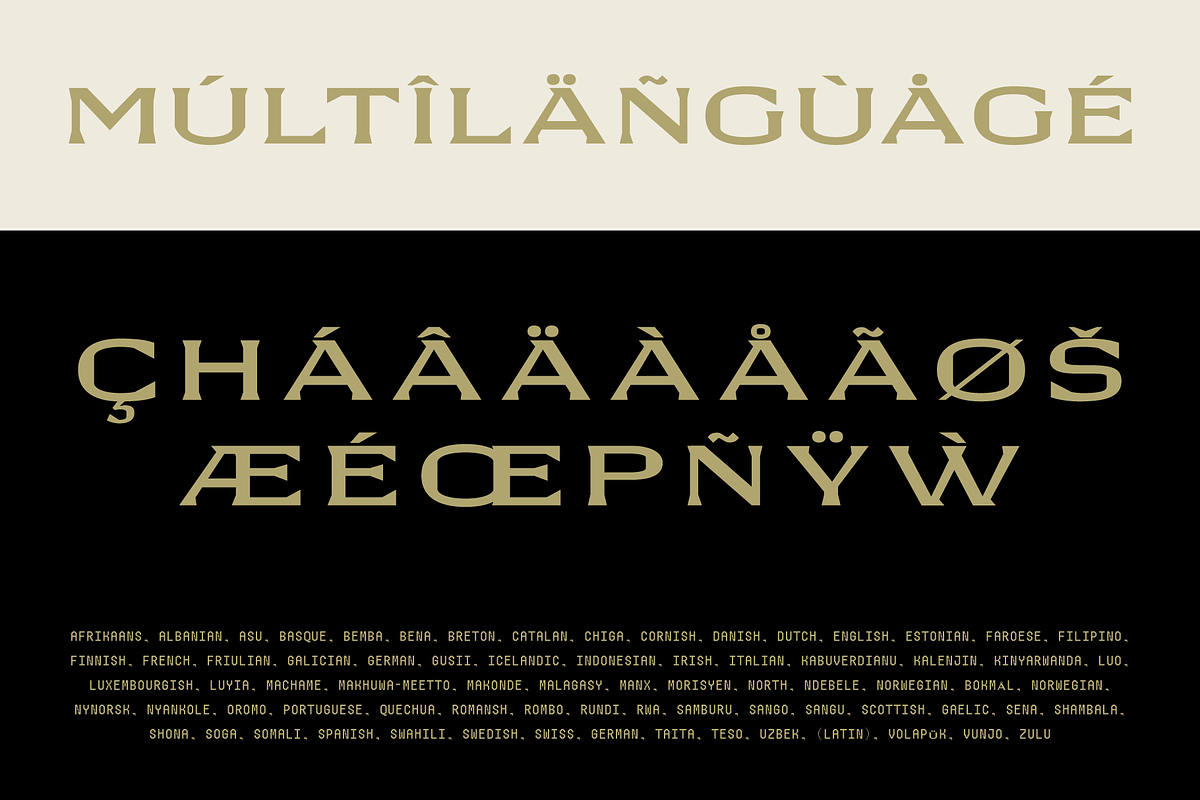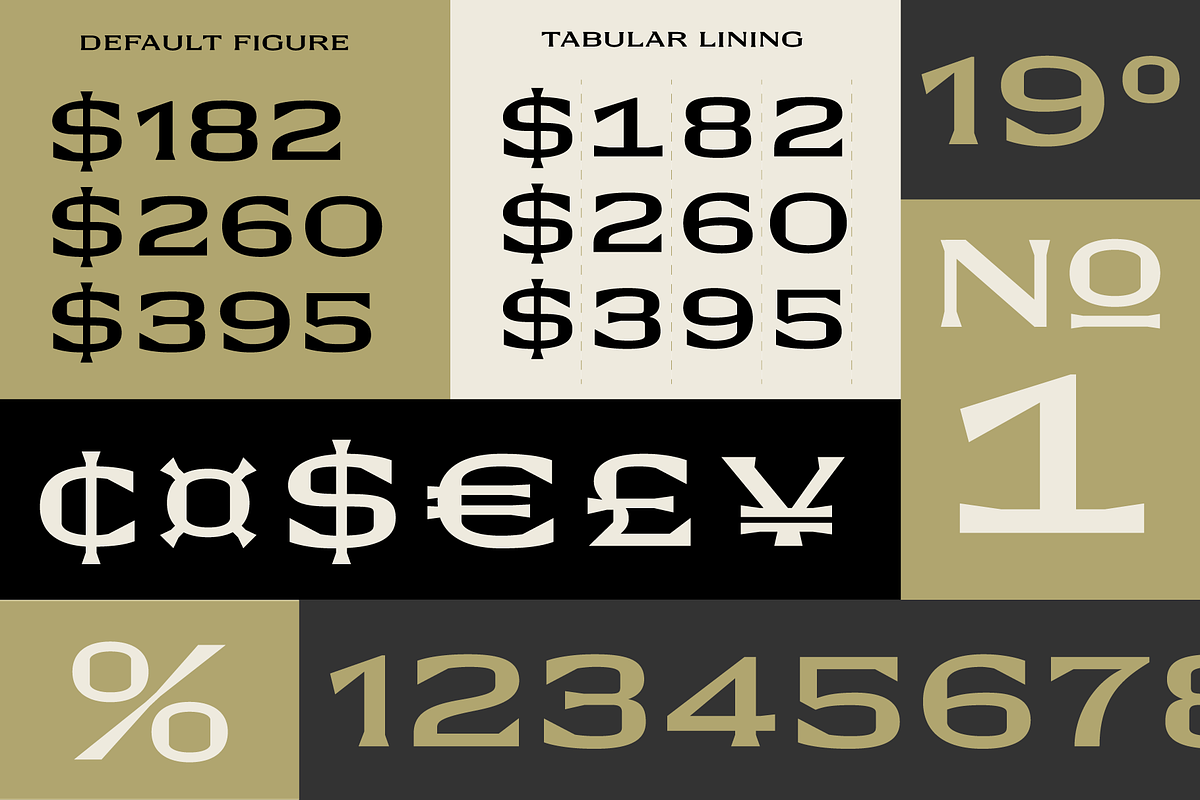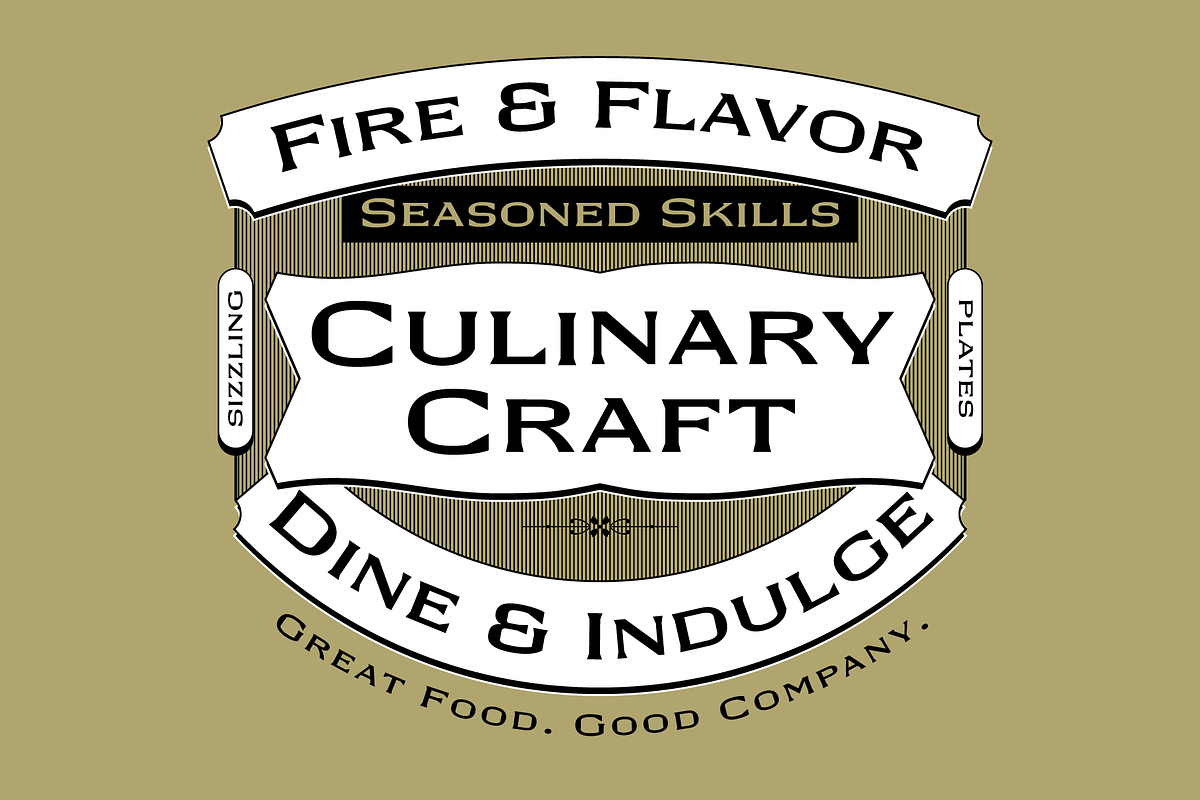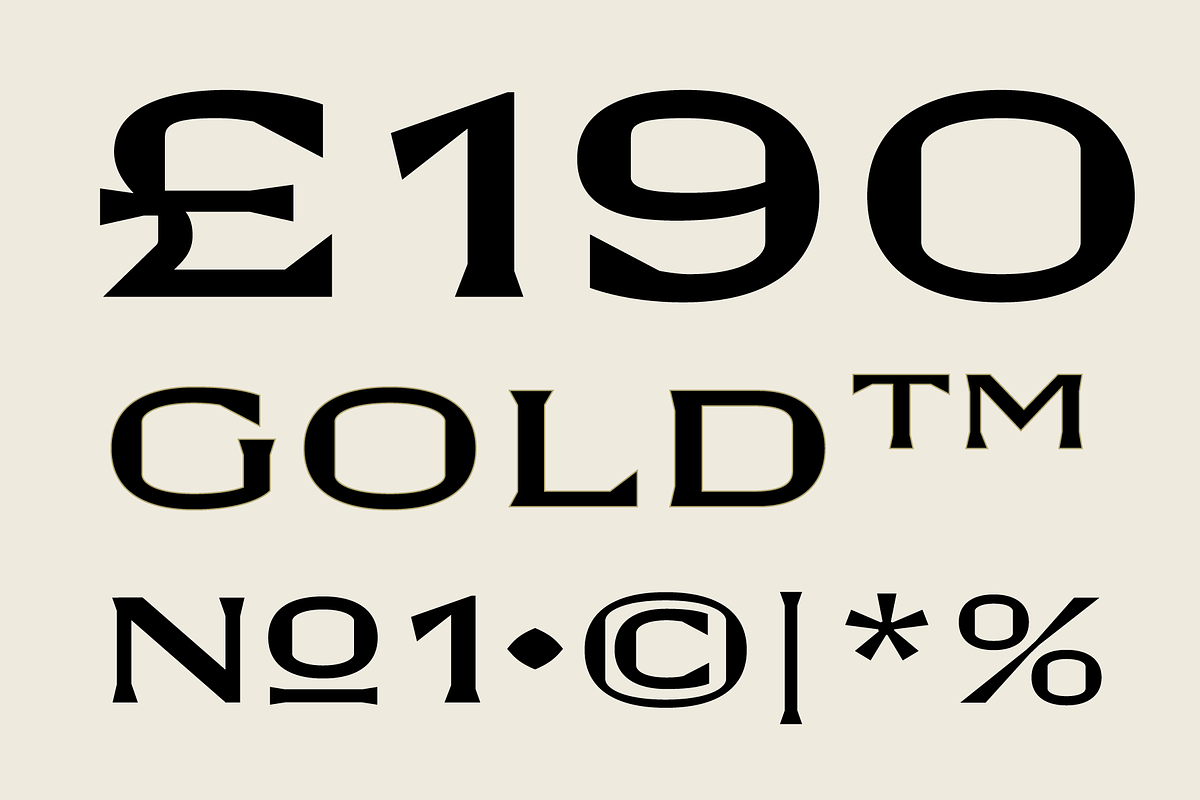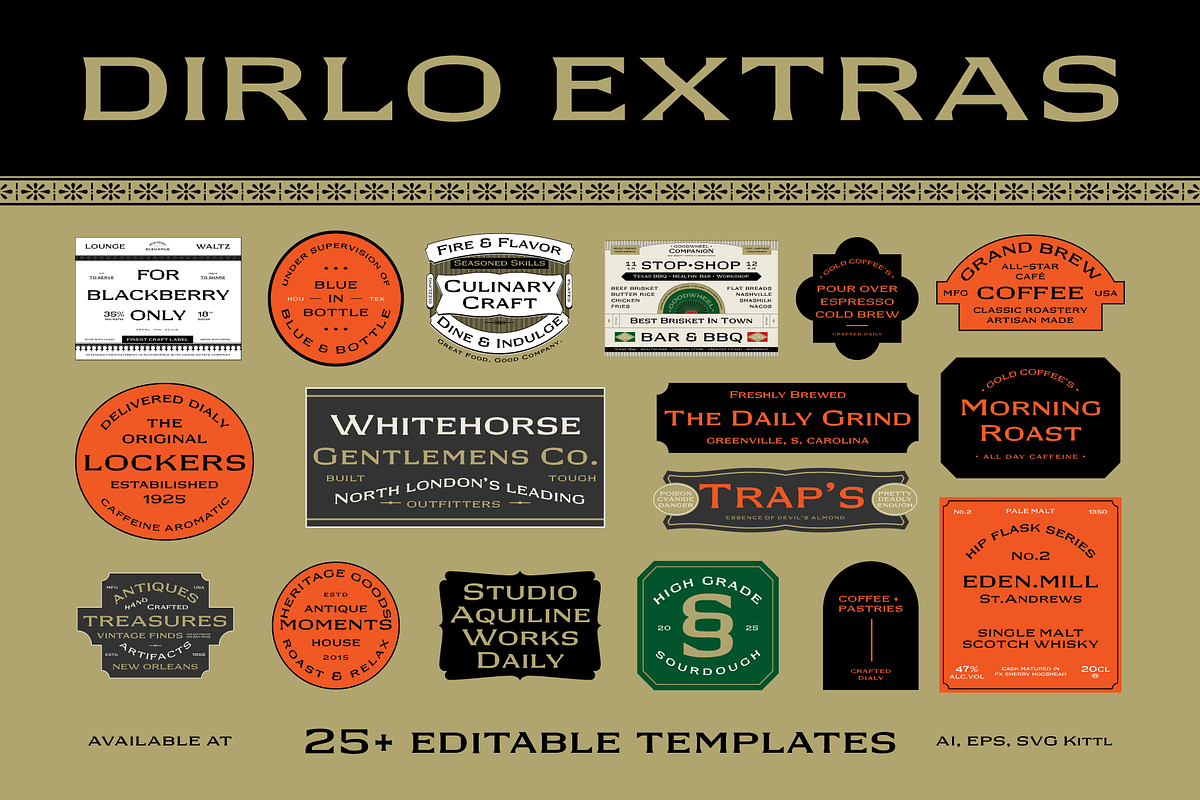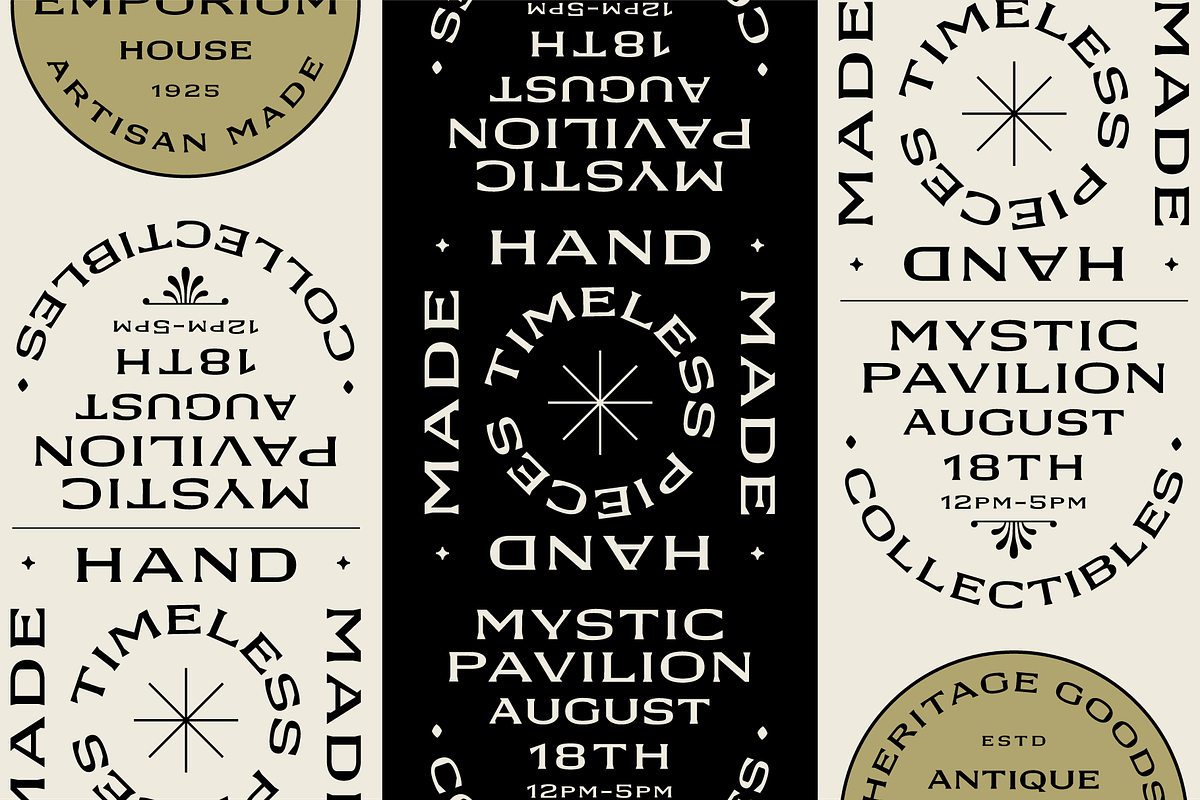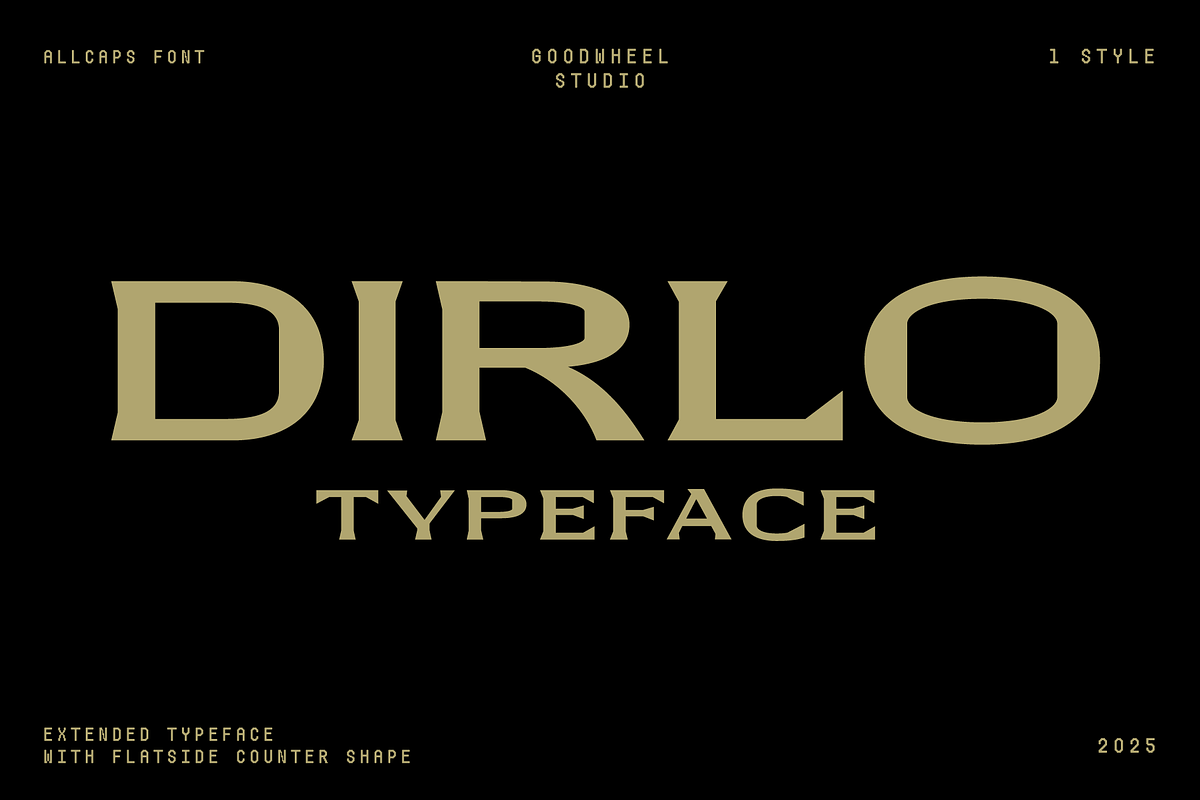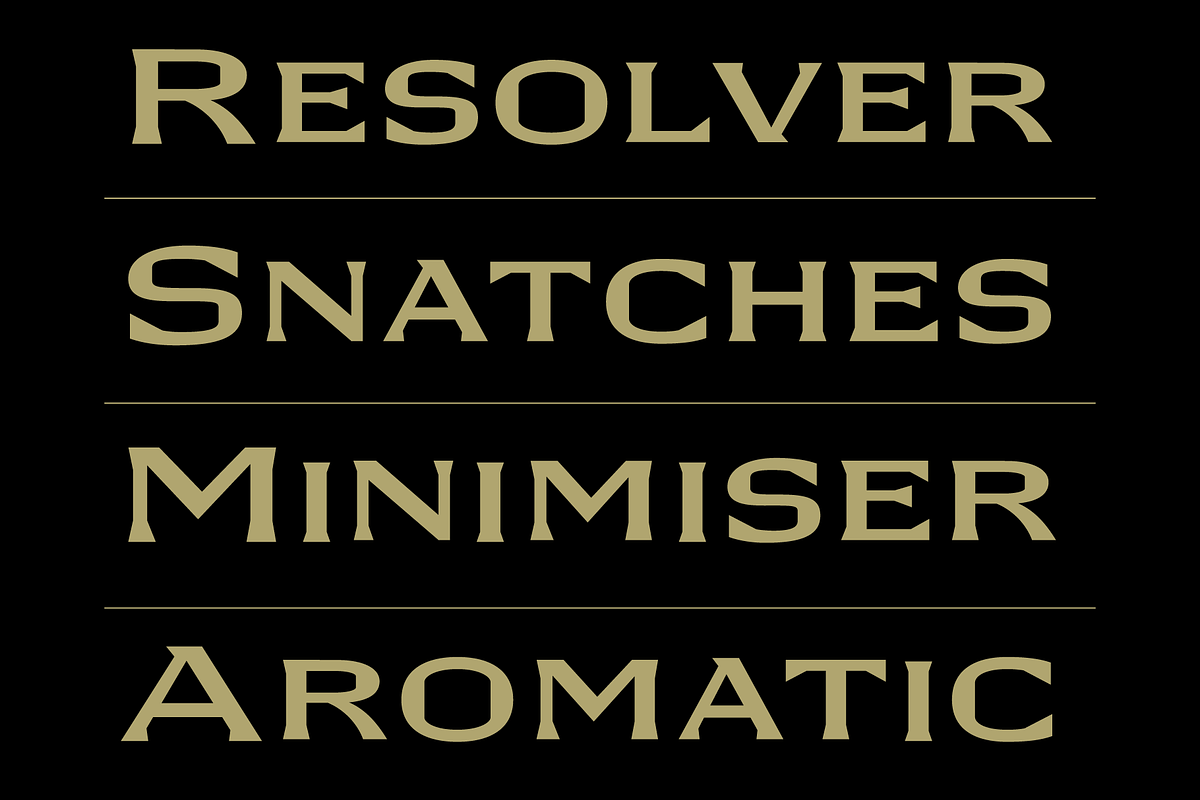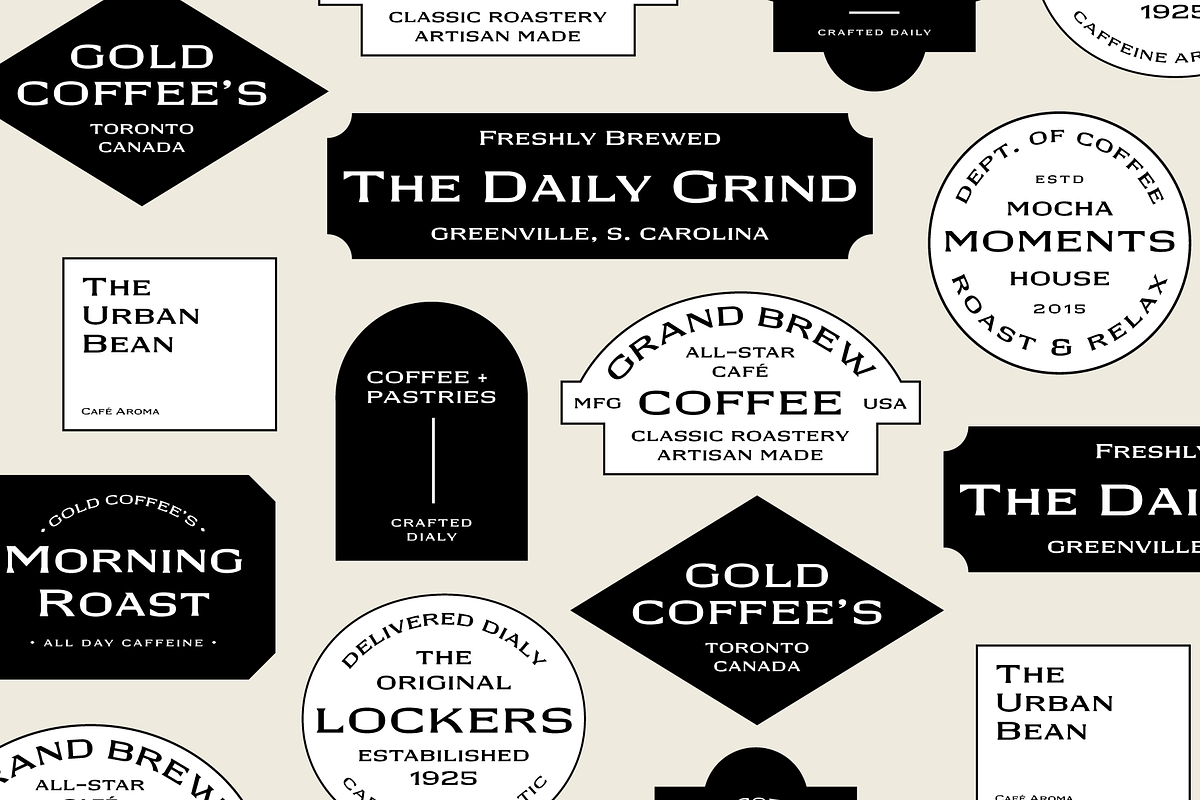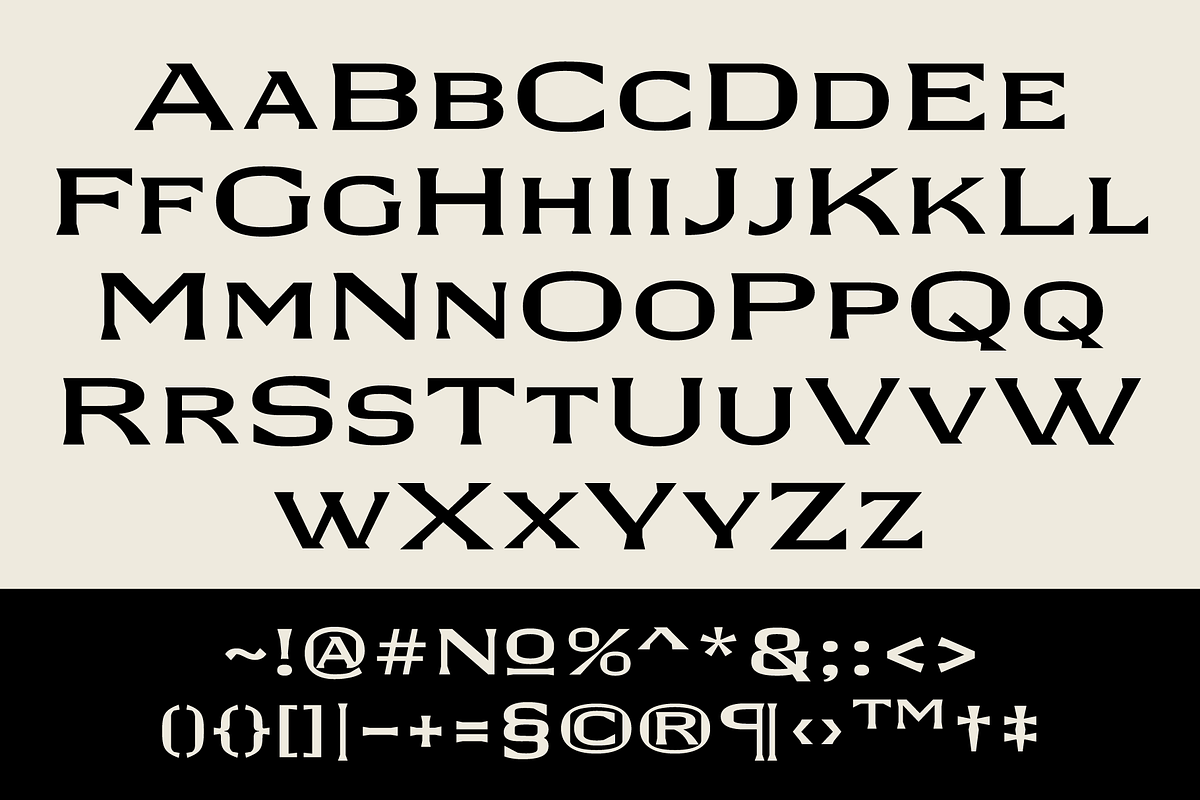
GW Dirlo
Display Typeface with Expanded proportion, flat side counter shape. best for Logo, Branding, Merch, Print on Demand, Web, Motion, Signage, Vintage, Retro, Poster.
Character set: Windows 1252
Opentype feature: Tabular Figure